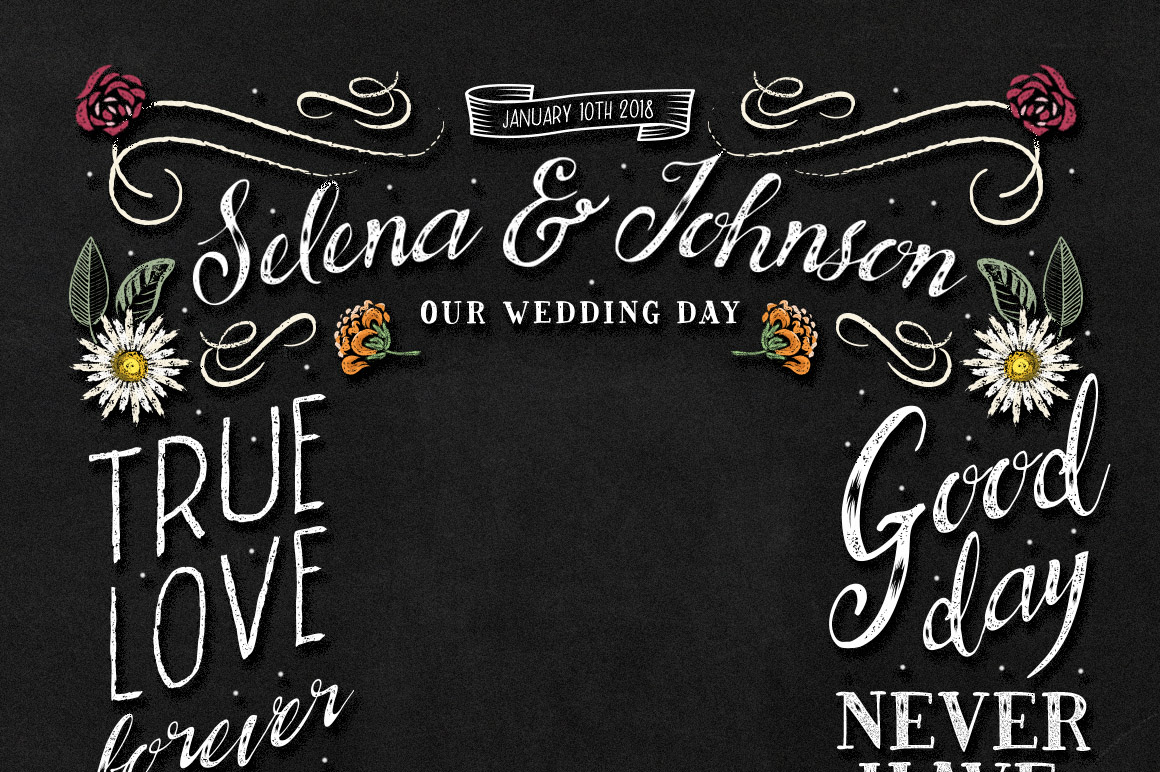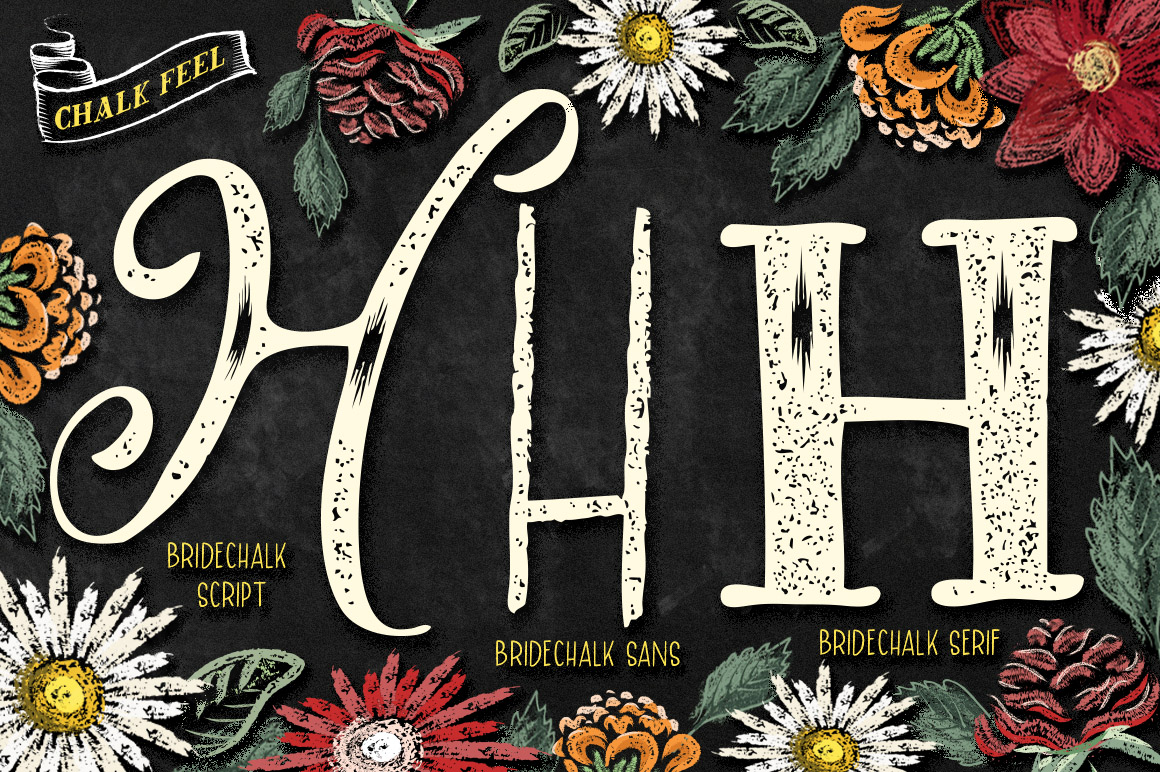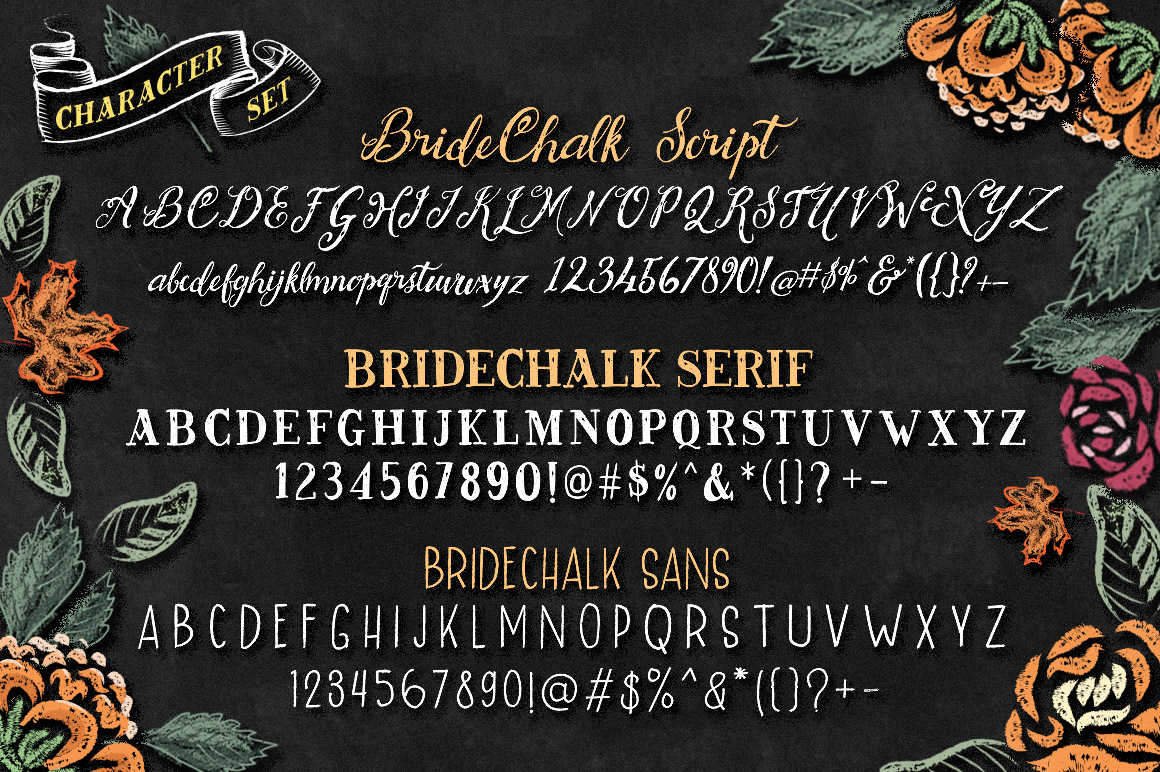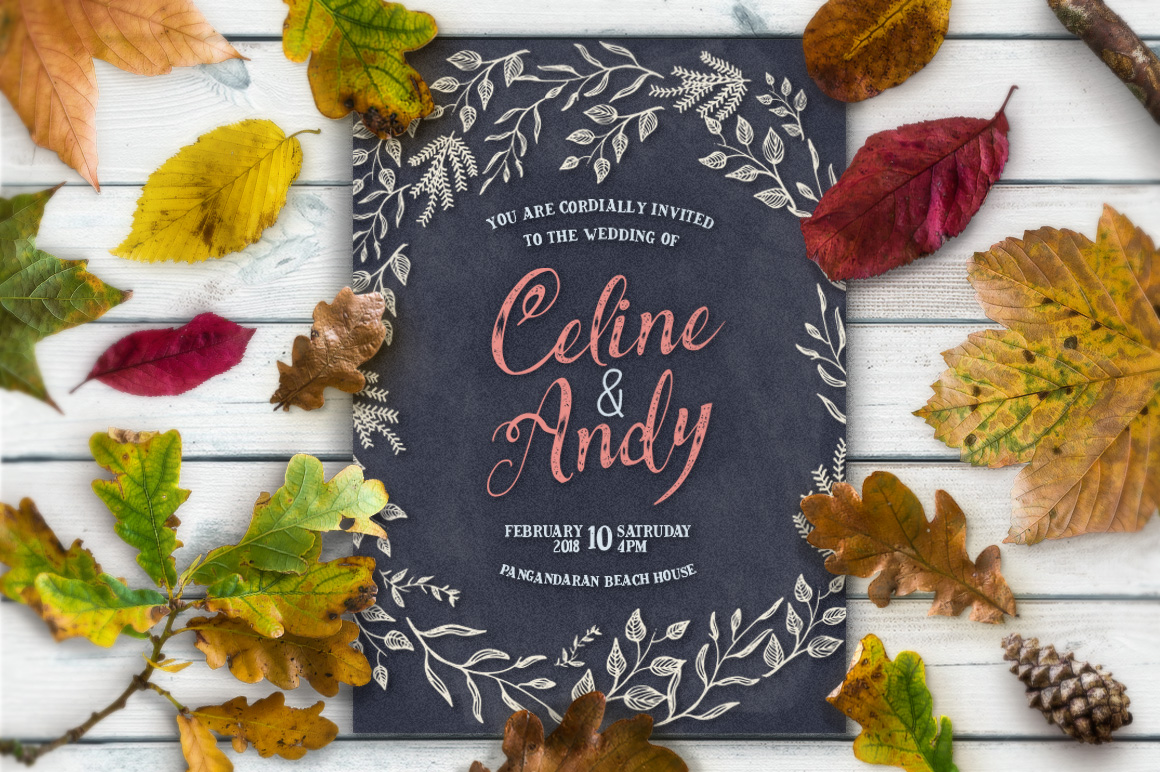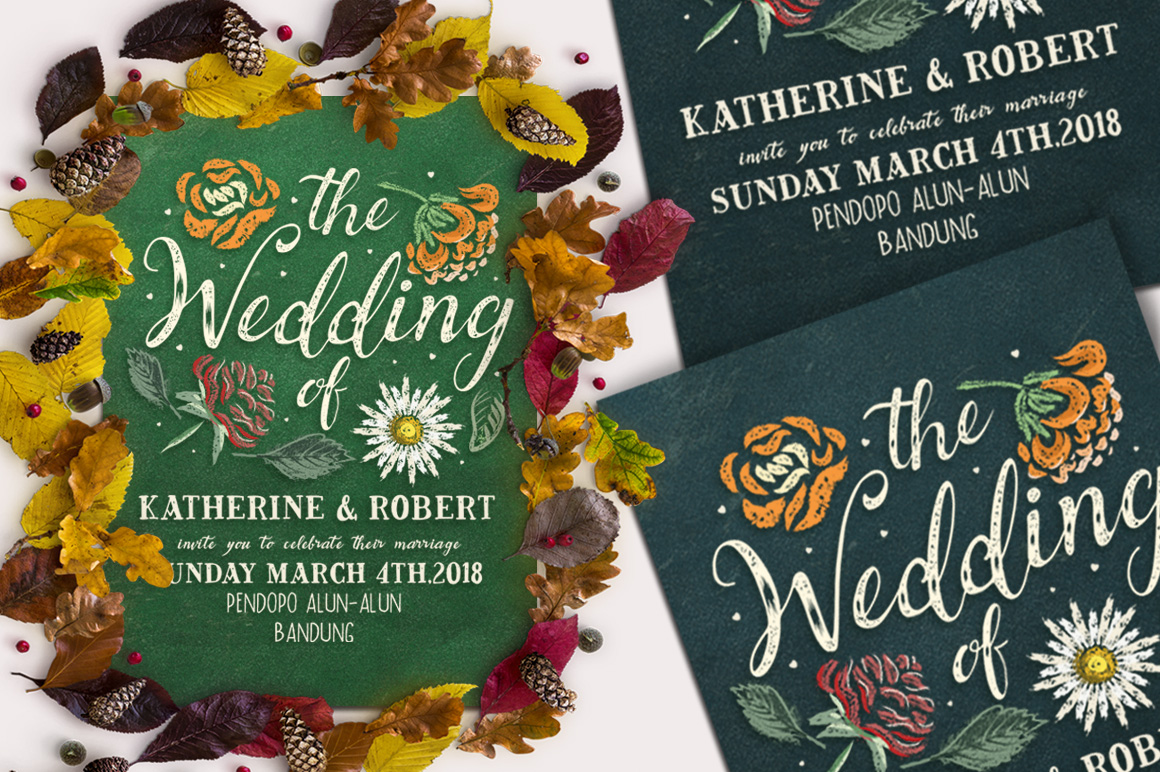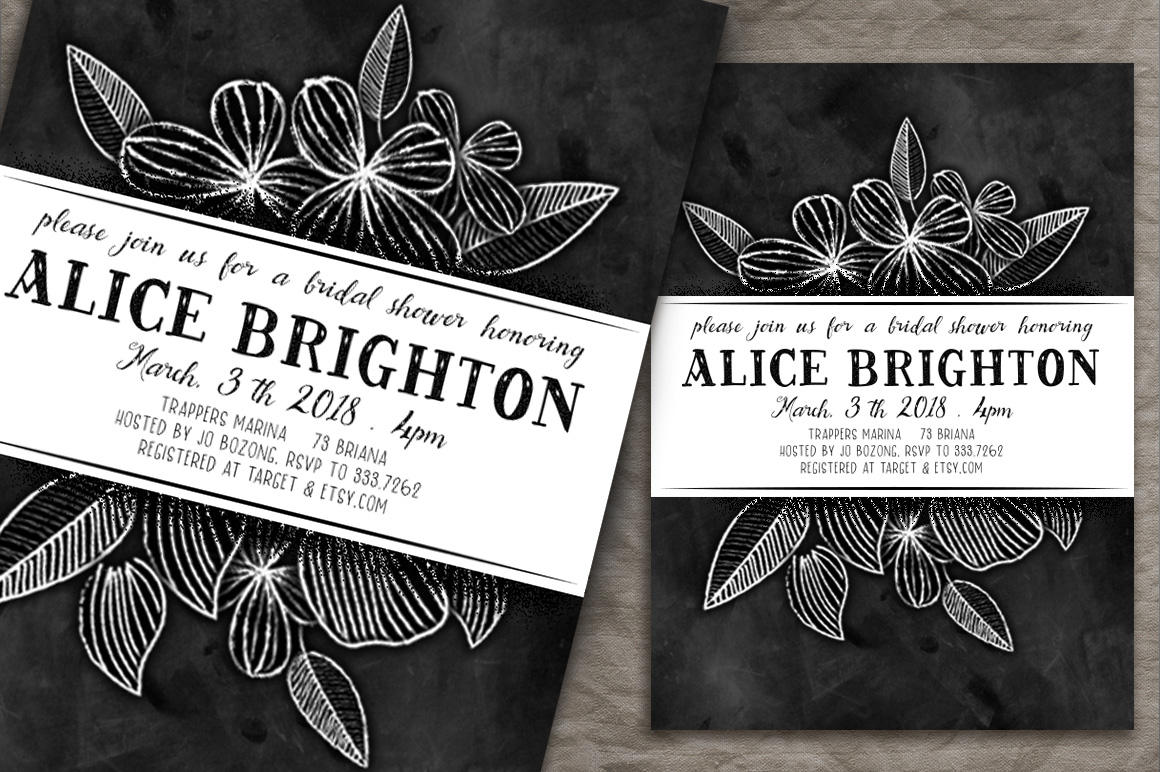
The Wedding Font of Dreams: A Deep Dive into BrideChalk
I’ll never forget the moment I stumbled upon the perfect font for a wedding design project. I was working late, surrounded by wedding magazines, Pinterest boards, and a sea of design concepts. My client wanted that special something – a font that would transport their guests to a whimsical, rustic wedding setting. That’s when I discovered BrideChalk, a beautiful, handlettered font that instantly captured the essence of a wedding celebration.
An Honest Review of BrideChalk
BrideChalk is a stunning font that embodies the elegance of handlettering on chalk backdrops at weddings. Here’s what I love about it:
• ✨ Elegant handlettered style that’s perfect for wedding designs
• ✅ Authentic and rustic charm that’s hard to find in digital fonts
• 💕 Beautifully crafted to evoke a sense of nostalgia and romance
• 🎉 Highly versatile and can be used for various design projects, from wedding invitations to social media graphics
While BrideChalk is an amazing font, it’s not without its quirks. Here are a few things to keep in mind:
• 🤔 Some users may find the font a bit finicky when it comes to kerning and spacing
• ⚠️ Limited availability of certain OpenType features, such as ligatures and stylistic alternates
The Story Behind BrideChalk
BrideChalk was inspired by the beautiful handlettering on chalk backdrops at weddings. The font’s creator wanted to capture the essence of these special moments and make them accessible to designers and crafters around the world. With its elegant handlettered style and rustic charm, BrideChalk has become a go-to font for wedding designers and DIY enthusiasts alike.
What is BrideChalk? BrideChalk is a beautiful, handlettered font that’s inspired by the elegant handlettering on chalk backdrops at weddings.
What can I use BrideChalk for? BrideChalk is perfect for wedding designs, DIY projects, and other creative endeavors that require a touch of elegance and rustic charm.